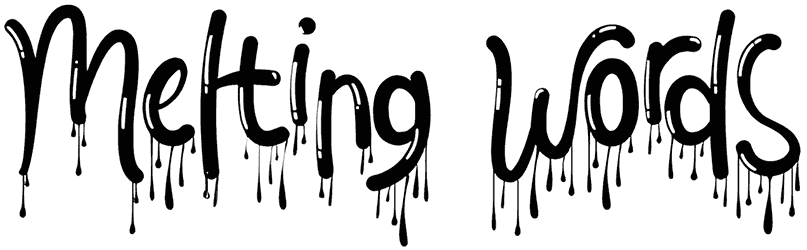
Melting Words Font
Melting Words does exactly what it says on the tin and can tell your story in a unique way to the audience. This melting font was created to give designers a great opportunity to fly in the world of creativity and create an attractive, numbers-free way to implement mental ideas.
Using both styles of this script font, you can create a stained look in your designs that will melt the heart of your audience and connect them to your projects.